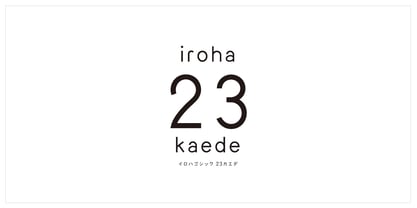
iroha 23 kaede Std N
Experience the joy of using different kana characters. When you look at the characters, thoughts and ideas naturally come to mind. Why did it take this form? How would I do it? For example, the font “iroha gothic” from Kijima Type Foundry has 12 different kana characters.Just as there are “voice actors” who convey words through their voices, there should also be “character actors” who convey words through characters. This font was created with that idea in mind. Experience the unique charm of Japanese, which combines kanji and kana, through this font.The richness of language will surely uplift your spirit.